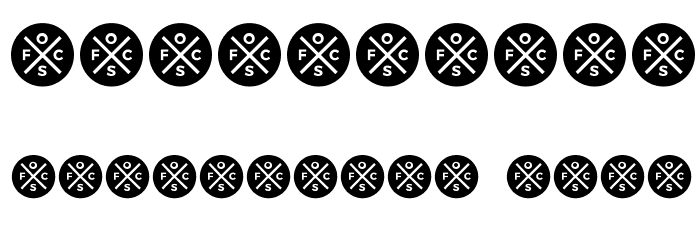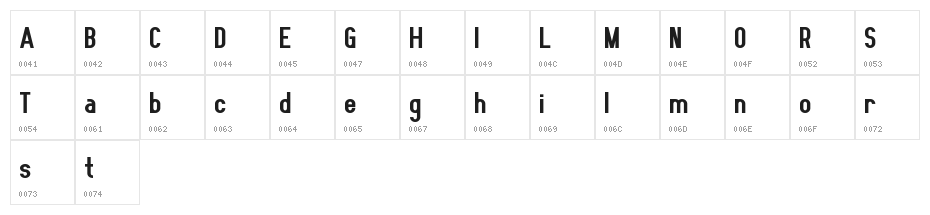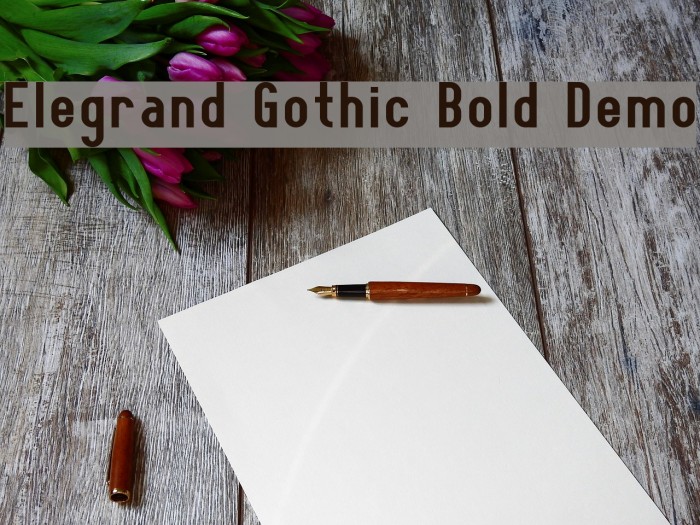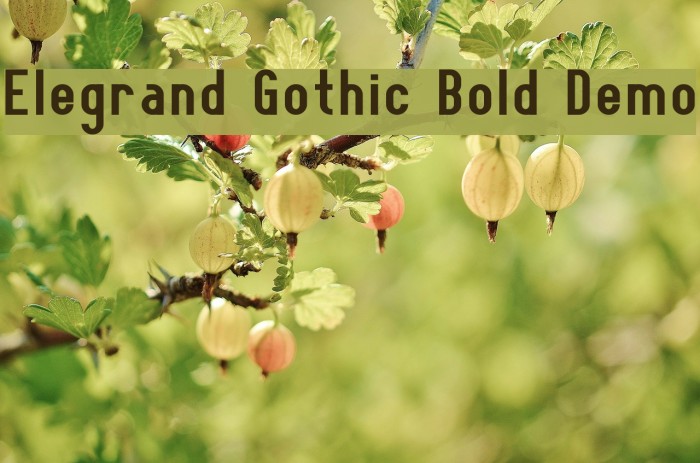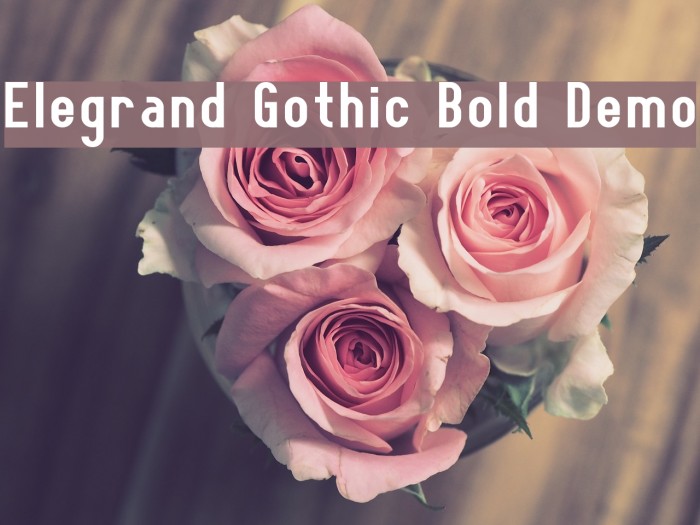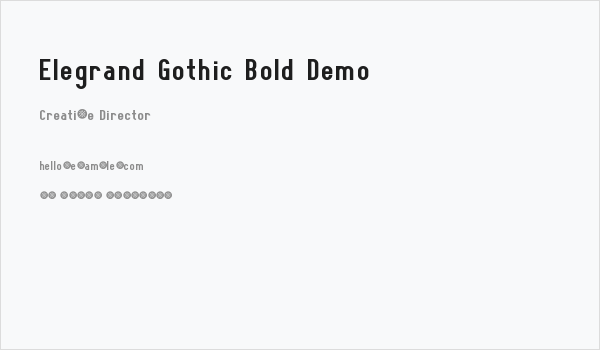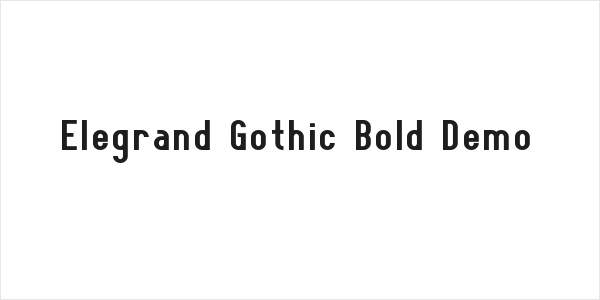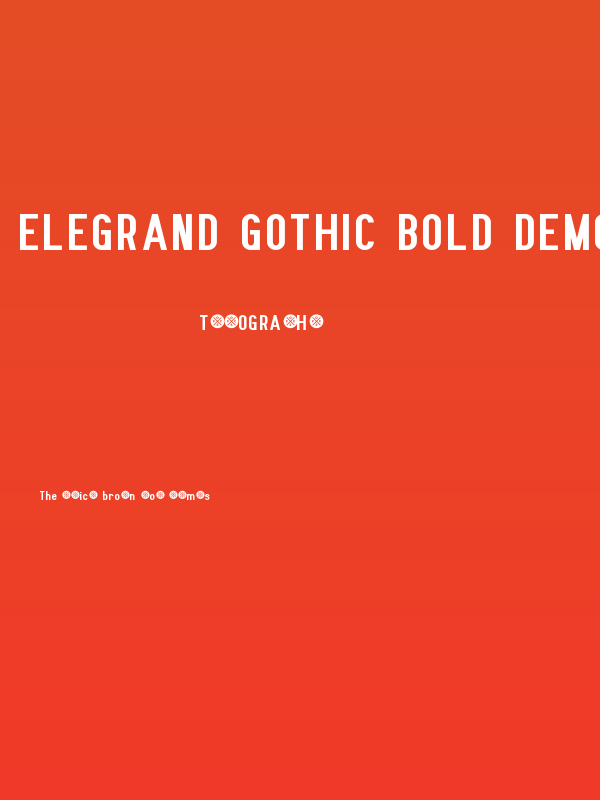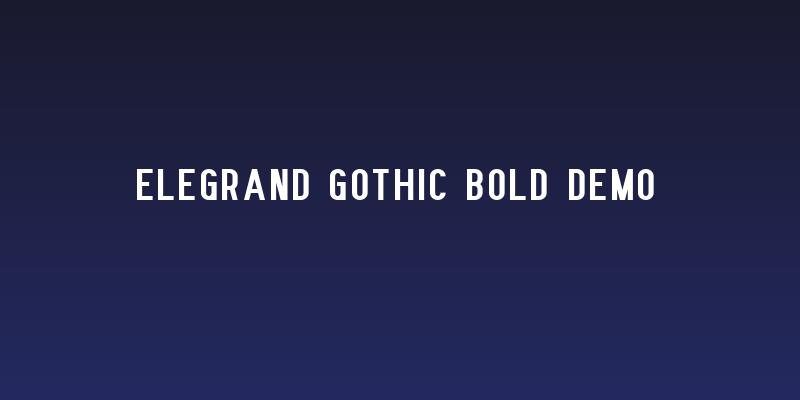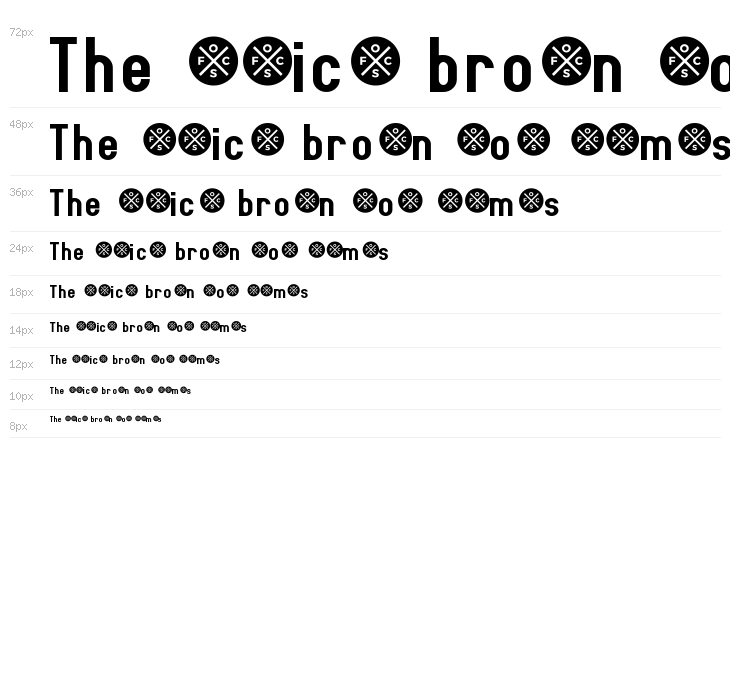
Elegrand Gothic Bold Demo Font
Elegrand Gothic Bold Demo Description
This bold, sans-serif font features clean, geometric lines and a modern aesthetic. The uppercase letters are tall and commanding, while the lowercase letters maintain a consistent height, ensuring readability. The numbers are straightforward and align well with the overall style. Special characters are designed with the same boldness and clarity, making them stand out without overpowering the text. The font's uniform stroke width gives it a strong presence, suitable for making impactful statements.
| Proposed Projects | Ideal for branding, headlines, posters, and digital media where a bold statement is needed. |